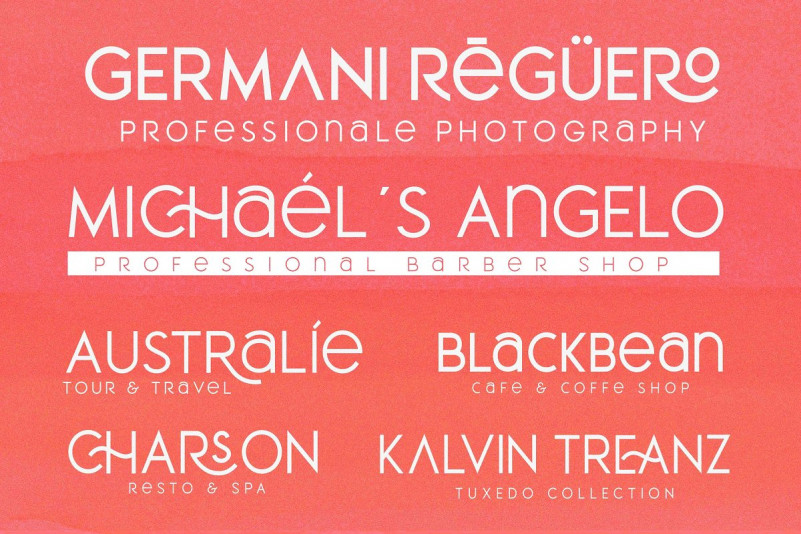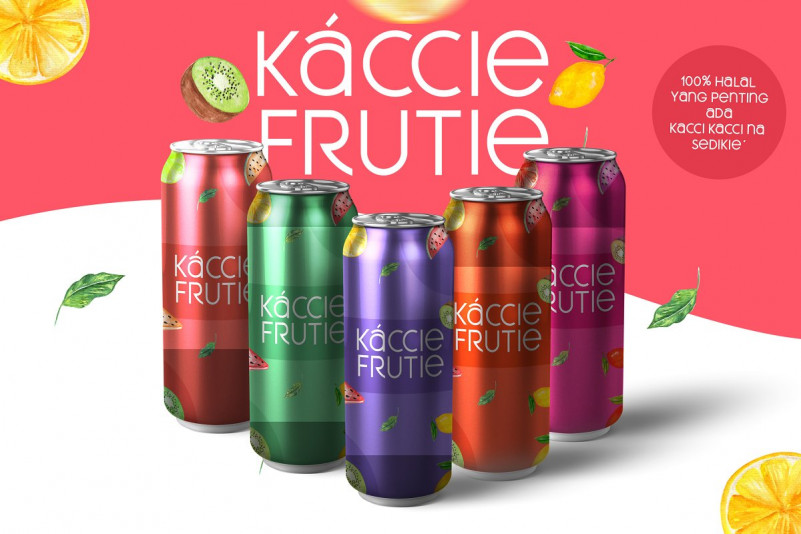
Say hello to Meroche Font. A new sweet & classy sans font. It’s designed and shared by MLKWSN. Meroche Sans Family consists of 4 weight : Thin, regular, medium and bold equipped with 20+ ligatures and alternative letters that look sweet and classy are very good for your work such as logos, branding, packaging, posters, invitations, instastory and your advertising needs